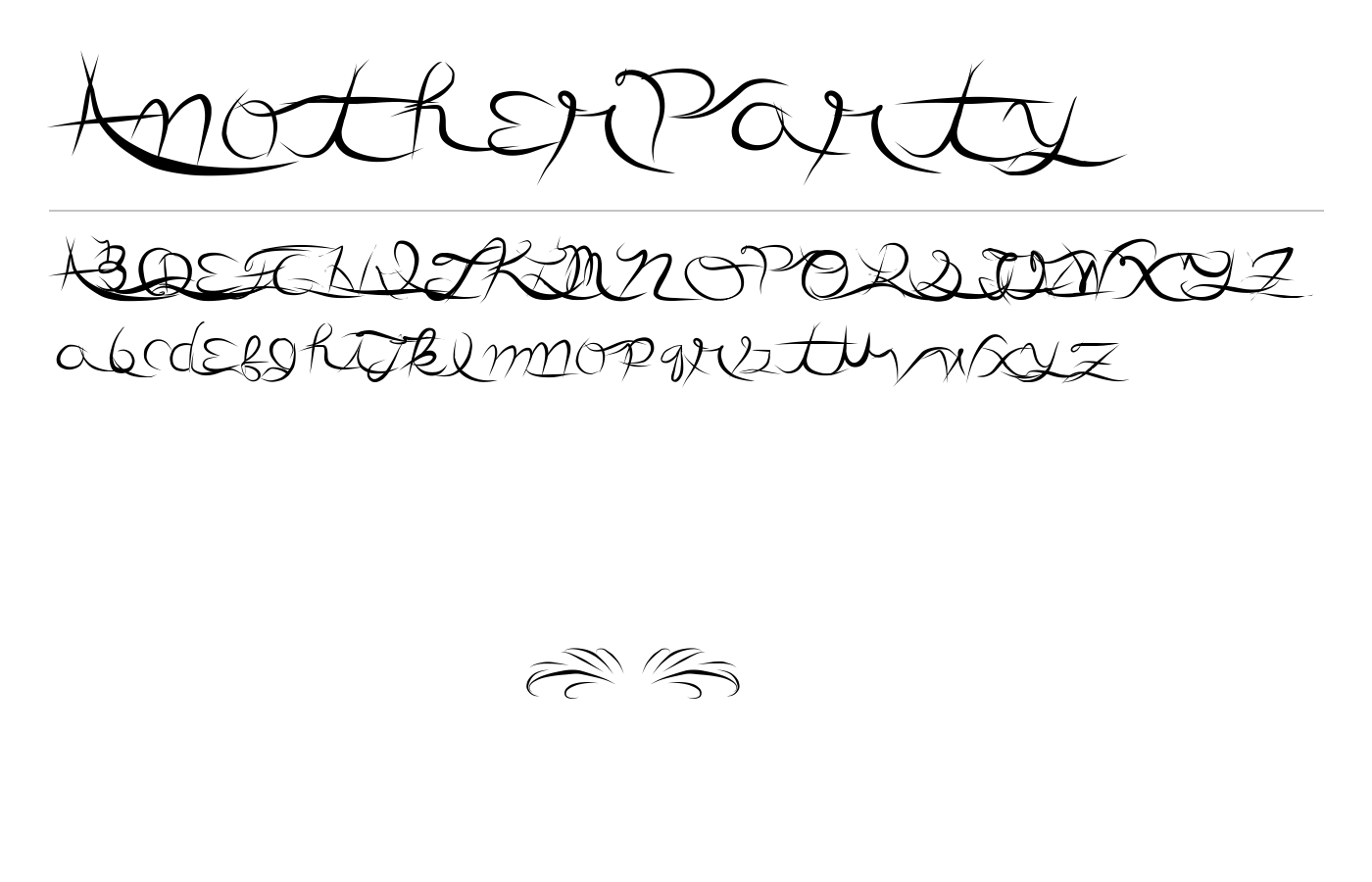
AnotherParty is a highly decorative script font with delicate, sweeping strokes and intricate, calligraphic flair. Its thin, elegant lines and fanciful loops create a whimsical and artistic feel, making it ideal for creative projects, invitations, and branding that wants to convey charm and sophistication. This font works best in large display settings where its ornamental qualities can truly shine.
AnotherParty Font
About AnotherParty Font